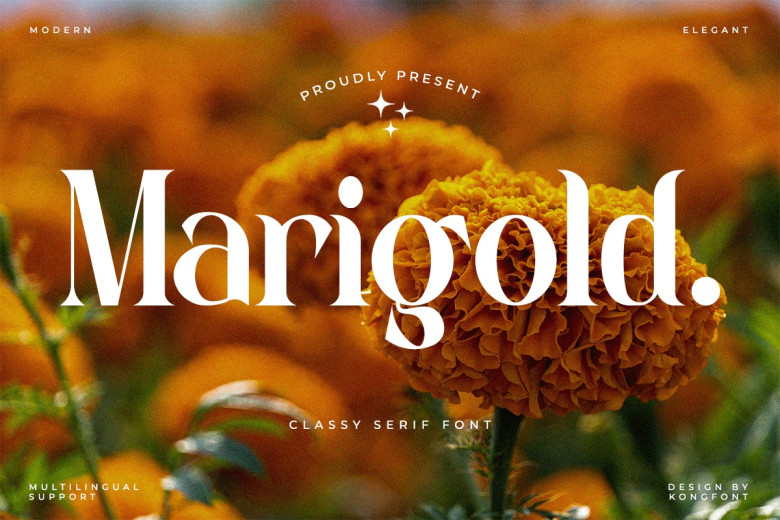
Marigold Serif Font an elegant font that marries sophistication with modernity in the same way that they do in scripts. Marigold is designed for graphic designers, typographers and everyone who is in search of more refined font for his work as well as for anybody who wants to add more elegance to his work.
Perfect for branding, editorial, invitations, packaging and logo, Marigold’s type characters are finely hand drawn to give a sense of opulence and elegance. This applies to every single letter and is aimed at readability and style and will make your designs entice and be memorable.
In the “Marigold” font, separate from ligatures, there is a set of uppercase and lowercase letters, numbers, punctuation, and special characters. Designed this way, it becomes rather easy to integrate it into a range of design projects from luxury branding to beautiful editorials. Sleek elegant and timeless – level up your designs with Marigold, a classy serif typeface.